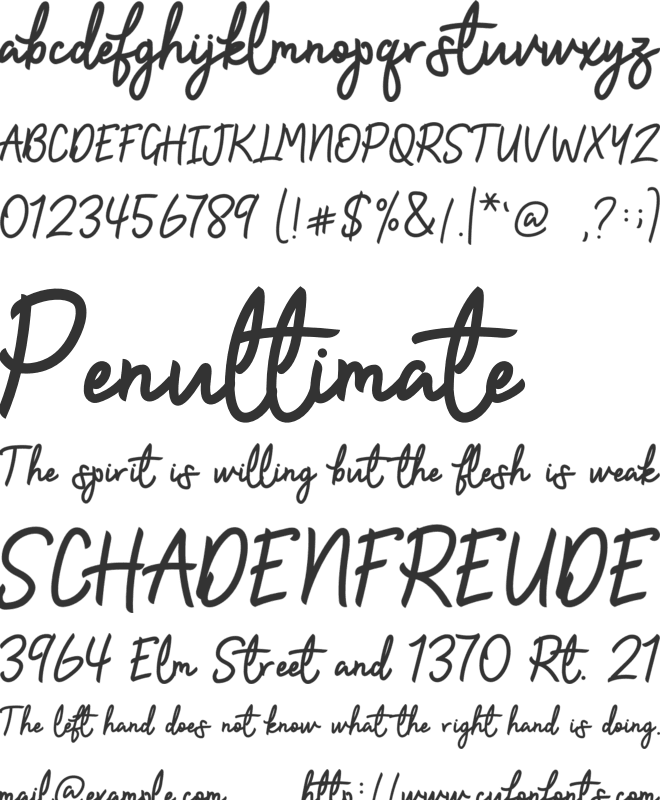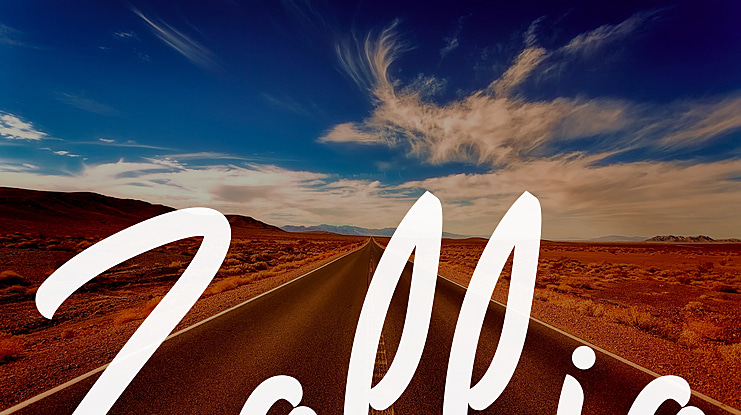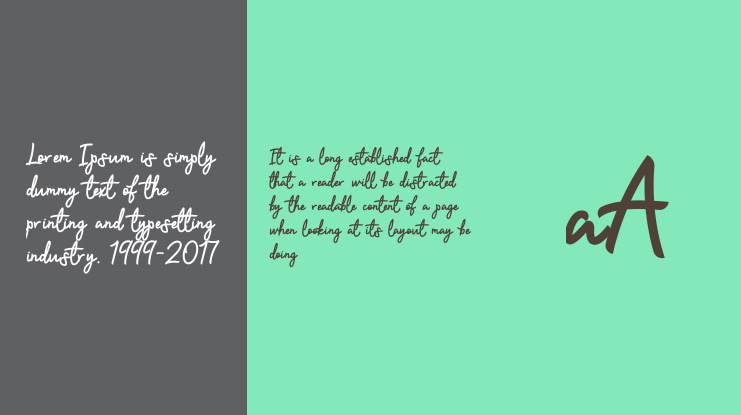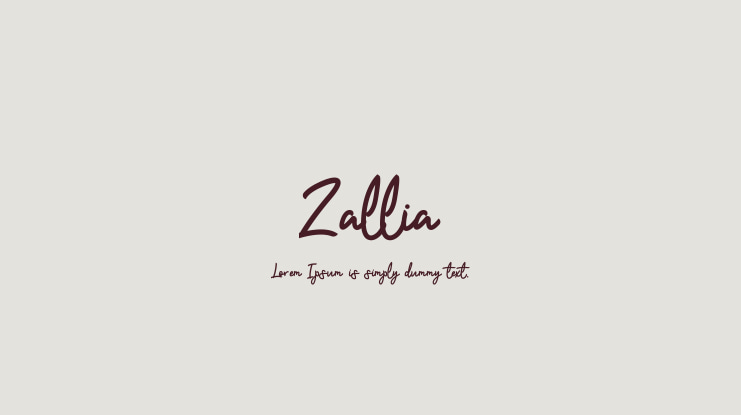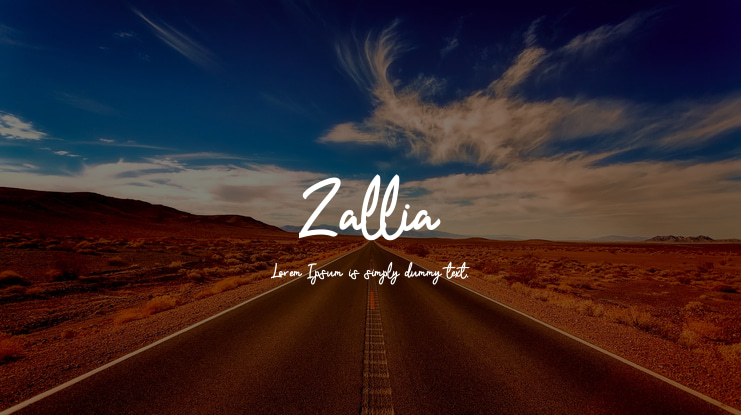
Zallia Font
Zallia - a modern bold font script created with a touch of a hand that has a soft but firm element to deliver its meaning
Zallia will be perfect for posters, t-shirts, book covers, packaging, quots and all designs that require soft elements that can still convey messages clearly